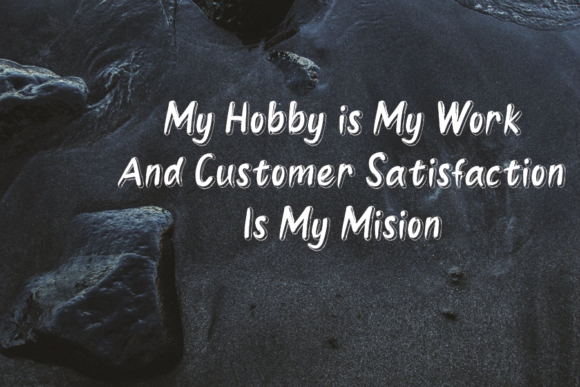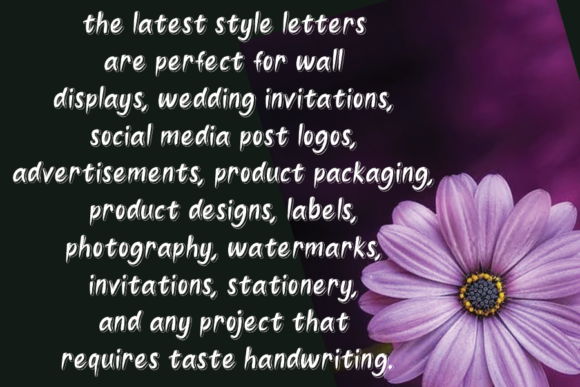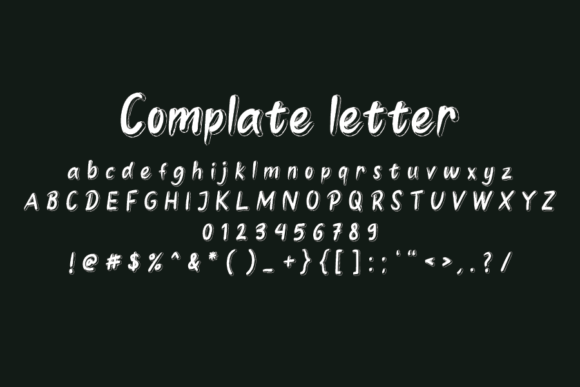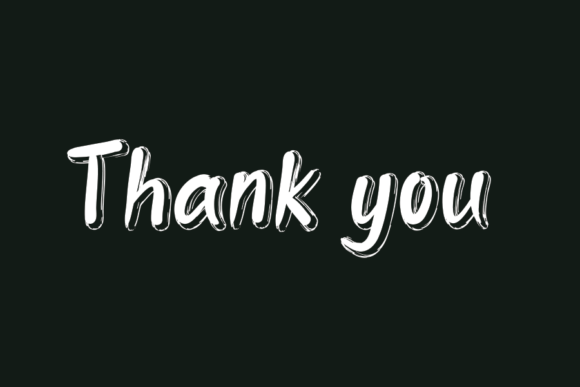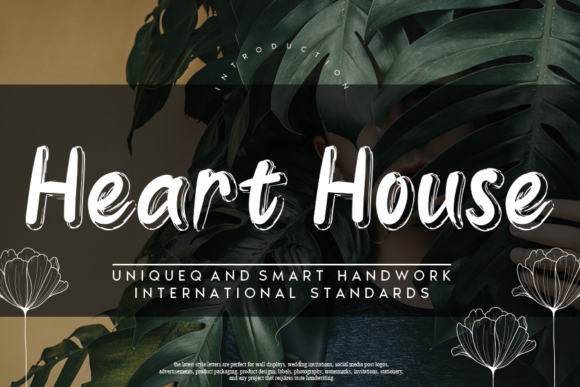
Introducing Heart House Font: The Ultimate Display Font for Creative Projects
Are you tired of using the same old fonts for your creative projects? Look no further than Heart House Font, a stunning display font that is sure to capture your heart. With its incredibly versatile style, Heart House Font is perfect for designers and crafters who want to add a touch of elegance and sophistication to their work.
What is Heart House Font?
Heart House Font is a flowing display font that is designed to make a statement. Its beautiful, cursive script is perfect for creating gorgeous wedding invitations, stunning stationary art, eye-catching social media posts, and much more. Whether you’re a designer, crafter, or DIY enthusiast, Heart House Font is the perfect addition to your font collection.
Key Features of Heart House Font
So, what makes Heart House Font so special? Here are just a few of its key features:
• Versatile style: Heart House Font is incredibly versatile, making it perfect for a wide range of creative projects.
• Flowing script: The font’s beautiful, cursive script is perfect for creating elegant and sophisticated designs.
• Easy to read: Despite its ornate style, Heart House Font is easy to read, making it perfect for use in both digital and print projects.
• High-quality design: Heart House Font is designed to the highest standards, ensuring that it looks great in any context.
Uses for Heart House Font
So, what can you use Heart House Font for? The possibilities are endless! Here are just a few ideas to get you started:
• Wedding invitations: Create beautiful, custom wedding invitations that will impress your guests.
• Stationary art: Use Heart House Font to create stunning stationary art, including greeting cards, thank you cards, and more.
• Social media posts: Add a touch of elegance to your social media posts with Heart House Font.
• Branding and marketing: Use Heart House Font to create custom branding and marketing materials, including logos, brochures, and more.
• Crafting projects: Add a personal touch to your crafting projects, including scrapbooking, DIY jewelry, and more.
Why Choose Heart House Font?
So, why should you choose Heart House Font for your creative projects? Here are just a few reasons:
• Unique style: Heart House Font has a unique and distinctive style that will set your projects apart from the crowd.
• Elegant and sophisticated: The font’s elegant and sophisticated style makes it perfect for creating high-end designs.
• Easy to use: Heart House Font is easy to use, even for those with limited design experience.
• High-quality design: The font is designed to the highest standards, ensuring that it looks great in any context.
In conclusion, Heart House Font is a stunning display font that is perfect for designers and crafters who want to add a touch of elegance and sophistication to their creative projects. With its incredibly versatile style, flowing script, and easy-to-read design, Heart House Font is the perfect addition to any font collection. So why wait? Fall in love with Heart House Font today and start creating gorgeous designs that will capture your audience’s heart!
Here are a few tips and tricks to help you get the most out of Heart House Font:
• Experiment with different sizes and colors: Don’t be afraid to experiment with different sizes and colors to find the perfect combination for your design.
• Pair with other fonts: Heart House Font pairs well with other fonts, so don’t be afraid to try pairing it with a bold sans-serif font for added contrast.
• Use it for headlines and titles: Heart House Font is perfect for use in headlines and titles, where its elegant and sophisticated style can really shine.